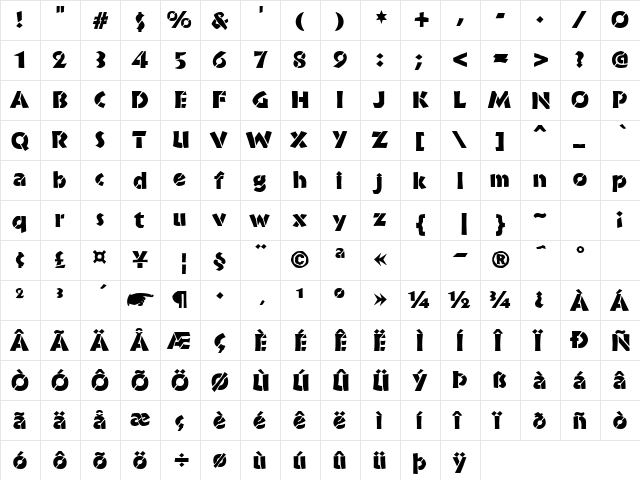
BrideOfTheMonster Stencil
| Style | Stencil |
Design Context for BrideOfTheMonster Typeface
BrideOfTheMonster has the rough pragmatism of spray-painted stencil signage, adding a raw, street-level authenticity to designs.
Ideal for industrial branding, streetwear, military-adjacent aesthetics, and urban signage projects.
Pro Tip: Pair BrideOfTheMonster with raw, utilitarian design elements — exposed concrete textures, flat colour, and minimal ornamentation suit it well.